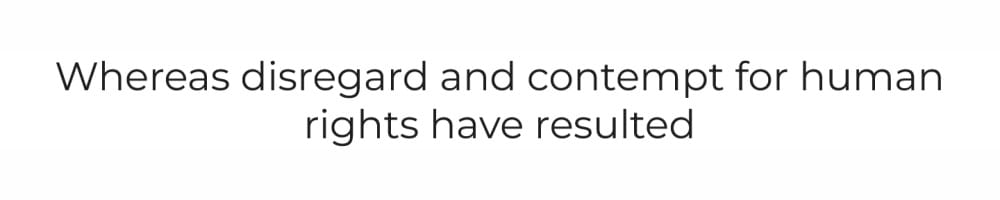
The best font for printing is one that remains readable at its actual size, on its actual material, through the chosen production method.
A clean typeface is a useful starting point, but no font stays equally clear on a cotton shirt, a distant banner and a tiny giveaway. Start with your brand’s approved fonts if you have them. Then test the words as they will appear on the finished item.
Choose for the finished piece, not the font preview
| Where it will appear | Usually a useful starting point | What to test |
|---|---|---|
| Shirt slogan or event apparel | Open, sturdy letter shapes and enough space between letters and lines. | Read the exact words at the planned print size. Inspect thin lines, counters inside letters and how the design sits on fabric. |
| Banner or sign | Short message, strong contrast and a clear hierarchy between headline and details. | View a scaled mockup from the expected distance; check whether condensed or all-cap text still reads quickly. |
| Small promotional imprint | Simple shapes, modest copy and a weight that survives the available imprint area. | Print a paper proof at 100% physical size, then confirm the supplier’s imprint area and process. |
| Embroidered name or logo | Letterforms that can be adapted to stitched lettering. | Ask for a stitch-ready proof or sample. Tiny gaps, fine serifs and small lowercase details may need redesign. |
These are starting points, not guaranteed font sizes or production tolerances. Material, ink or thread, colour contrast, equipment and layout all affect the result.
6 useful font families, with limits
These families are available through their linked Google Fonts pages. They are options for new artwork, not substitutes for a required brand font. The links open the correct family specimen so you can inspect styles, character coverage and licence details.
Inter: clear supporting text
Inter is a practical candidate for contact details, labels and short supporting copy. Try regular or medium weights before using very light text. Its open shapes are helpful, but a dense block of text can still fail on a small or textured imprint.
Source Sans 3: information that must be read
Source Sans 3 is worth testing for longer instructions or small secondary details when a plain sans serif suits the brand. Keep line length, contrast and physical size in check; choosing a readable family does not rescue copy squeezed into an inadequate space.
Montserrat: short, prominent words
Montserrat can give a slogan or sign heading a strong geometric look. Use a sufficiently substantial weight and leave room around the letters. Its wide forms can consume space quickly, so do not shrink an entire headline simply to make it fit.
Oswald: a narrow headline when space is tight
Oswald can fit a short headline into a narrower area. Test it from the intended viewing distance. Condensed type is a layout choice, not a way to make a long message legible on a small banner.
Lora: editorial text on suitable stock
Lora offers a serif option when the design calls for a warmer, editorial feel. It can work for readable printed paragraphs at an appropriate size on suitable material. Check the finer parts of the letters in a real proof before moving it to a small garment or merchandise imprint.
Playfair Display: a large, brief accent
Playfair Display suits a short, prominent phrase when its fine details have room to show. It is a risky default for tiny copy or small embroidery. Pair a display face with a simpler typeface for the information a customer actually needs to read.
A brand font may be the better choice. Helvetica Now, Avenir Next or another licensed family might already be part of your identity. Use the exact licensed font if it fits the finished application; do not replace it with a similarly named download from an unrelated site. These six suggestions are a shortlist for testing, not a ranking of every typeface.
What changes between print and embroidery?
On a printed shirt, the method and fabric affect how thin strokes, tiny gaps and fine details reproduce. A lettering design should be judged at its planned dimensions and decoration method, ideally with a production proof. If you are still choosing a garment and printing route, the custom T-shirt printing page is the place to review the service.
Embroidery translates artwork into stitches. A font that looks clean on screen cannot simply be assumed to sew cleanly. Letter height, spacing, fabric, thread and digitizing matter.
Embroidery fonts have their own recommended size ranges; small lowercase letters can be harder to reproduce than capitals at the same nominal setting. Send the actual wording and garment to the custom embroidery team for a suitable proof rather than promising one universal minimum letter size.
Keep an editable original. For the production copy, follow the printer’s requested format. Outlines can prevent substitution but make the words harder to edit; a correctly exported PDF with permitted embedded fonts may also be appropriate.